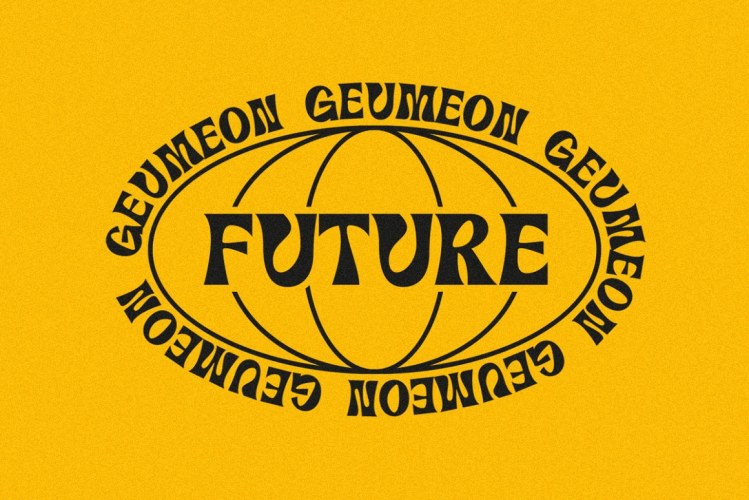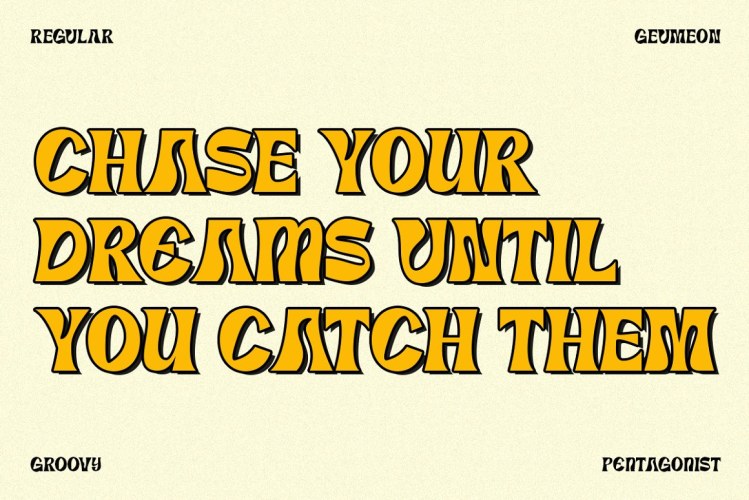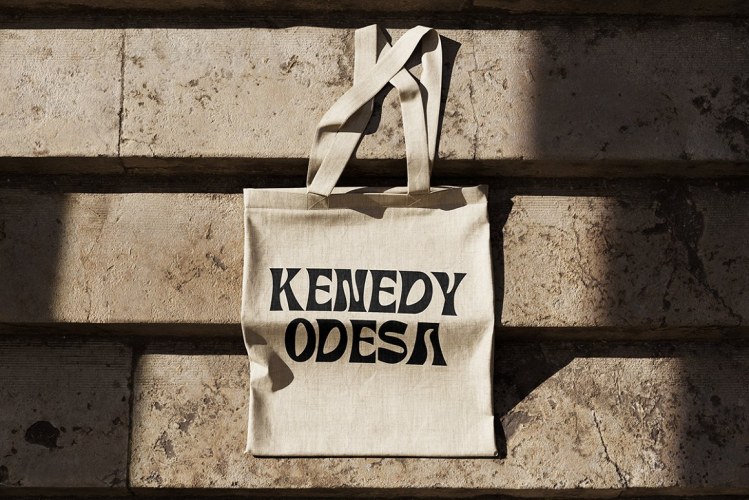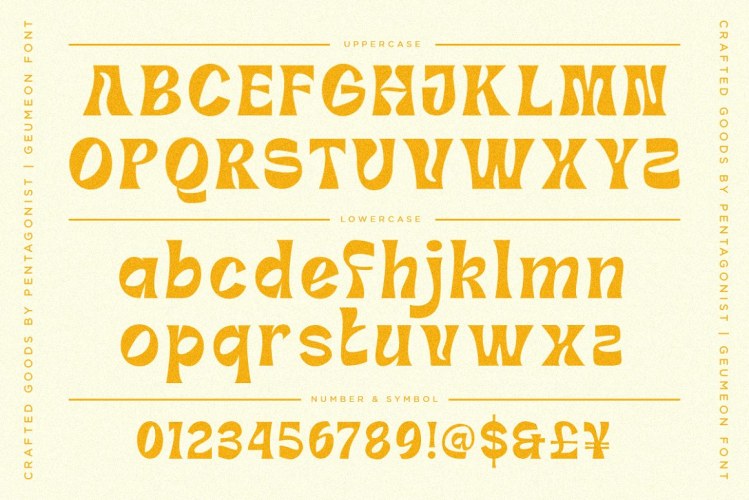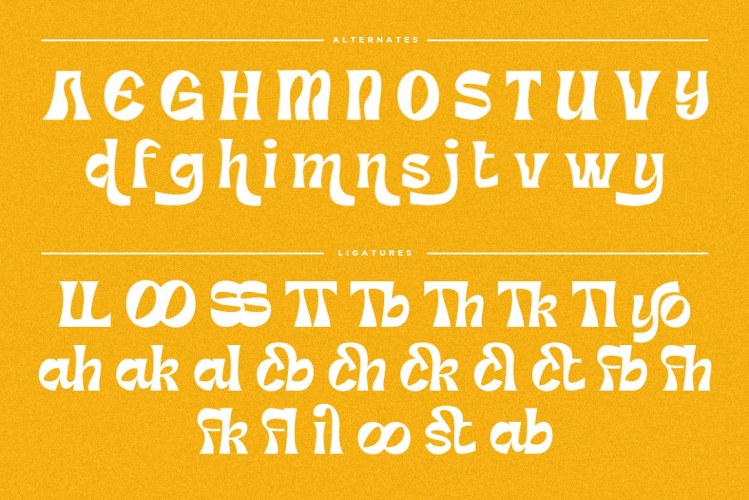
Geumeon – Groovy Display Font
Geumeon Is A Groovy Display Character Inspired By Retro and Vintage Style.
Where Geumeon – Groovy Display Font works best
Geumeon – Groovy Display Font is built for size: event posters, hero headlines and billboard-style layouts.
High contrast display type like Geumeon – Groovy Display Font reads instantly in thumbnails and motion graphics.
What is Geumeon – Groovy Display Font good for?